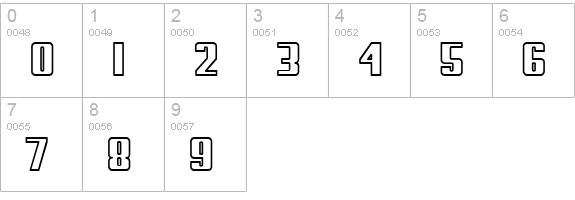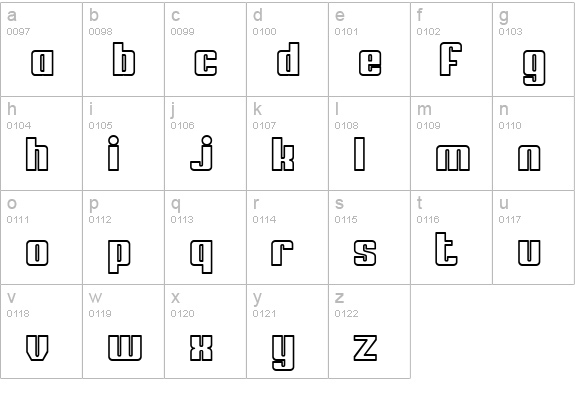
My Puma Outlined Font Details
Introducing My Puma Outlined font, a sleek and modern typeface that exudes sophistication and style. This unique font features clean lines and a bold design, making it perfect for a variety of design projects. Whether you're creating posters, logos, or branding materials, My Puma Outlined font is sure to make a statement. What sets My Puma Outlined font apart is its versatility and readability, making it suitable for both display and text use. The sharp outlines and elegant letterforms will add a touch of elegance to any project. And the best part? My Puma Outlined font is available for free download at FontsMarket.com. So go ahead and elevate your designs with this stunning typeface today!